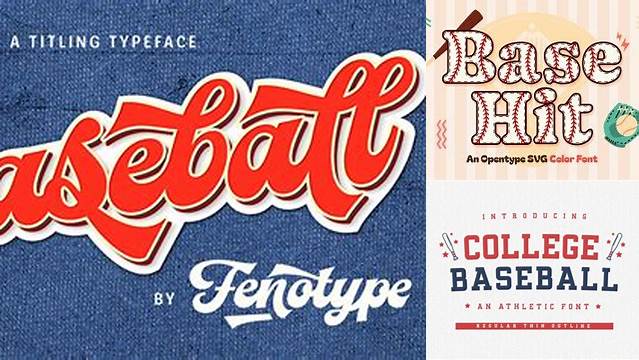
Free College Baseball Fonts: Download Your Style!
Hey guys! Are you looking to capture the classic, spirited feel of college baseball in your design projects? You've come to the right place! In this comprehensive guide, we'll dive deep into the world of college baseball fonts, exploring everything from their history and characteristics to where you can find them for free. Whether you're designing a team logo, creating social media graphics, or working on a presentation, the right font can make all the difference. So, let's get started and explore the exciting realm of college baseball fonts!
Understanding the Essence of College Baseball Fonts
When we talk about college baseball fonts, we're not just referring to any old typeface. These fonts carry a certain weight, a sense of tradition and athletic prowess. Think about the iconic jerseys and team logos you've seen over the years – they all have one thing in common: a strong, impactful font that embodies the spirit of the game. But what exactly makes a font a “college baseball font”? It's a combination of factors, including the font's style, weight, and overall aesthetic. Typically, these fonts are bold, blocky, and often feature serifs (the little decorative strokes at the ends of letters) that give them a classic, authoritative look. These serifs add a touch of formality and tradition, reminiscent of the historical significance of college sports. However, there are also modern variations that incorporate sans-serif styles for a cleaner, more contemporary feel. The key is to choose a font that not only looks good but also conveys the right message. A well-chosen font can evoke feelings of nostalgia, excitement, and team pride. It can make your design stand out and immediately recognizable as being related to college baseball. Furthermore, the consistency of using a particular font across all your branding materials helps to build a strong, cohesive identity. Imagine the University of Texas Longhorns without their distinct burnt orange and bold font – it just wouldn't be the same! So, as we delve deeper into this topic, keep in mind that the right college baseball font is more than just a visual element; it's a powerful tool for storytelling and brand building. It’s about capturing the energy and passion of the game and translating it into a visual form that resonates with fans and players alike. Finding that perfect font can be a game-changer for your project, whether it’s for a team website, a promotional flyer, or even a personal passion project. So, let’s explore further and discover how you can find the ideal college baseball font to elevate your designs.
Key Characteristics of College Baseball Fonts
So, what are the key characteristics that define college baseball fonts? It’s not just about picking any bold typeface; there's a specific aesthetic that captures the essence of the sport. One of the most prominent features is their boldness and weight. These fonts are designed to make a statement, to be easily readable from a distance – think about the lettering on jerseys, caps, and stadium banners. A strong, heavy font conveys a sense of power and confidence, essential qualities in the competitive world of college baseball. Another defining characteristic is the use of serifs. Serifs are the small decorative strokes that finish off the ends of letters, and they add a classic, traditional touch to the font. Fonts like Times New Roman and Georgia are prime examples of serif fonts, and they exude a sense of history and authority. In the context of college baseball, serifs evoke a feeling of heritage and the long-standing traditions of the sport. However, not all college baseball fonts are serif fonts. Sans-serif fonts, which lack these decorative strokes, also have their place. Sans-serif fonts offer a cleaner, more modern look, and they can be particularly effective for designs that aim for a contemporary feel. Think about the sleek, minimalist logos of some of the newer college teams – they often opt for sans-serif fonts to project a sense of innovation and forward-thinking. Beyond serifs and sans-serifs, the overall style and personality of the font play a crucial role. Some fonts have a more aggressive, dynamic feel, with sharp angles and strong lines, perfect for conveying a sense of speed and action. Others are more rounded and approachable, ideal for creating a friendly, welcoming image. The best college baseball fonts also often incorporate unique design elements, such as stylized numerals or distinctive letterforms. These subtle details can set a font apart and make it instantly recognizable. For example, some fonts might feature a slanted or italicized look to suggest motion and energy, while others might have a slightly distressed or weathered appearance to evoke a sense of history and tradition. Ultimately, the key characteristics of college baseball fonts boil down to a combination of boldness, readability, and a distinct personality that aligns with the spirit of the game. Whether you're looking for a classic serif font or a modern sans-serif option, understanding these characteristics will help you make the right choice for your project. It’s about finding a font that not only looks good but also effectively communicates the essence of college baseball.
Where to Find Free College Baseball Fonts
Top Free Font Choices for College Baseball Designs
Alright, let's get down to specifics! You're on the hunt for the perfect free font for your college baseball designs, and I'm here to help you narrow down the field. Based on the characteristics we've discussed, there are several standout options that you can find readily available online. One of the top contenders is Bebas Neue. This is a popular sans-serif font known for its clean, modern, and bold appearance. While it's not a traditional serif font, its strong vertical lines and condensed letterforms make it a fantastic choice for headlines, logos, and anything that needs to grab attention. Bebas Neue exudes a sense of power and athleticism, making it a great fit for college baseball designs. Another excellent option is Oswald. Oswald is another sans-serif font, but it has a slightly more rounded and approachable feel than Bebas Neue. It's still bold and impactful, but it also has a friendly, welcoming vibe. This font is particularly well-suited for designs that aim to strike a balance between strength and approachability. If you're looking for a classic serif font that embodies the tradition of college baseball, Roboto Slab is a solid choice. This font is part of the Roboto family, and it offers a sturdy, reliable appearance with its blocky serifs and strong letterforms. Roboto Slab is highly readable and versatile, making it a great option for both headlines and body text. For a more vintage, weathered look, consider League Gothic. This sans-serif font has a slightly distressed appearance that gives it a unique, retro feel. It's a great choice for designs that aim to evoke a sense of history and tradition. League Gothic is particularly effective when used in combination with other classic design elements, such as vintage logos and color schemes. Another fantastic free font is Raleway. This elegant sans-serif font offers a wide range of weights, from thin and delicate to bold and impactful. This versatility makes Raleway a great choice for a variety of design applications, from headlines and subheadings to body text and captions. Its clean lines and modern aesthetic make it a great fit for contemporary college baseball designs. When choosing a font, it’s essential to consider the overall tone and message you want to convey. Do you want your design to feel classic and traditional, or modern and edgy? Do you want it to be bold and assertive, or friendly and approachable? The right font can help you communicate these messages effectively. Don't be afraid to experiment with different fonts and combinations of fonts to find the perfect fit for your project. Try pairing a bold headline font with a more legible body text font, or using different weights and styles of the same font family to create visual interest. Remember, the key is to choose a font that not only looks good but also effectively communicates the essence of college baseball.
Tips for Using College Baseball Fonts Effectively
Okay, you've found some awesome college baseball fonts – now what? It's not enough just to download a font; you need to know how to use it effectively to create visually stunning designs. Here are some tips to help you make the most of your chosen typeface. First and foremost, consider the context of your design. Where will the font be used? Is it for a team logo, a website header, social media graphics, or something else? The context will influence your font choice and how you use it. For example, a font that looks great on a large banner might not be as effective on a small business card. Legibility is key, especially when it comes to sports-related designs. You want your font to be easily readable from a distance, whether it's on a jersey, a stadium sign, or a website. Avoid fonts that are too thin, ornate, or condensed, as these can be difficult to read. Choose fonts with clear, well-defined letterforms and ample spacing. Contrast is your friend. Use contrasting font styles, sizes, and weights to create visual interest and hierarchy in your designs. For example, you might pair a bold headline font with a lighter body text font, or use different sizes and weights of the same font family to differentiate between headings and subheadings. A well-balanced contrast makes your design more engaging and easier to navigate. Don't be afraid to experiment with color. The color of your font can have a significant impact on the overall look and feel of your design. Consider the team's colors and try using them in your font. You can also use color to create contrast and highlight key elements in your design. Just be sure to choose colors that work well together and don't clash. Pay attention to spacing. Kerning (the spacing between individual letters) and tracking (the overall spacing between letters in a word or line) can make a big difference in the legibility and appearance of your font. Adjust the kerning and tracking as needed to ensure your font looks balanced and well-spaced. Too little or too much spacing can make your font look cramped or disjointed. Limit the number of fonts you use. As a general rule, it's best to stick to two or three fonts in a single design. Using too many fonts can make your design look cluttered and confusing. Choose a primary font for headlines and other prominent elements, and a secondary font for body text and captions. Consider the overall aesthetic. Your font should complement the overall style and tone of your design. If you're creating a vintage-inspired design, choose a font that has a classic, retro feel. If you're going for a modern look, opt for a clean, sans-serif font. The font should fit seamlessly into the design and enhance the message you're trying to convey. By following these tips, you can use college baseball fonts effectively to create visually appealing and impactful designs that capture the spirit of the game. Remember, the key is to choose a font that is legible, visually interesting, and consistent with the overall aesthetic of your design.
So, there you have it, guys! A deep dive into the world of college baseball fonts and how to find them for free. We've covered everything from the essential characteristics of these fonts to the best resources for finding them and tips for using them effectively. Remember, the right font can make a huge difference in the success of your design project, whether you're creating a team logo, designing social media graphics, or working on a presentation. By understanding the unique qualities of college baseball fonts and knowing where to find them, you can create visually compelling designs that capture the spirit and energy of the game. Don't be afraid to experiment with different fonts and styles to find the perfect fit for your project. The world of typography is vast and exciting, and there's always something new to discover. With a little creativity and effort, you can create designs that are not only visually appealing but also effectively communicate your message. So, go ahead, download some free college baseball fonts, and start creating awesome designs that celebrate the sport we all love!